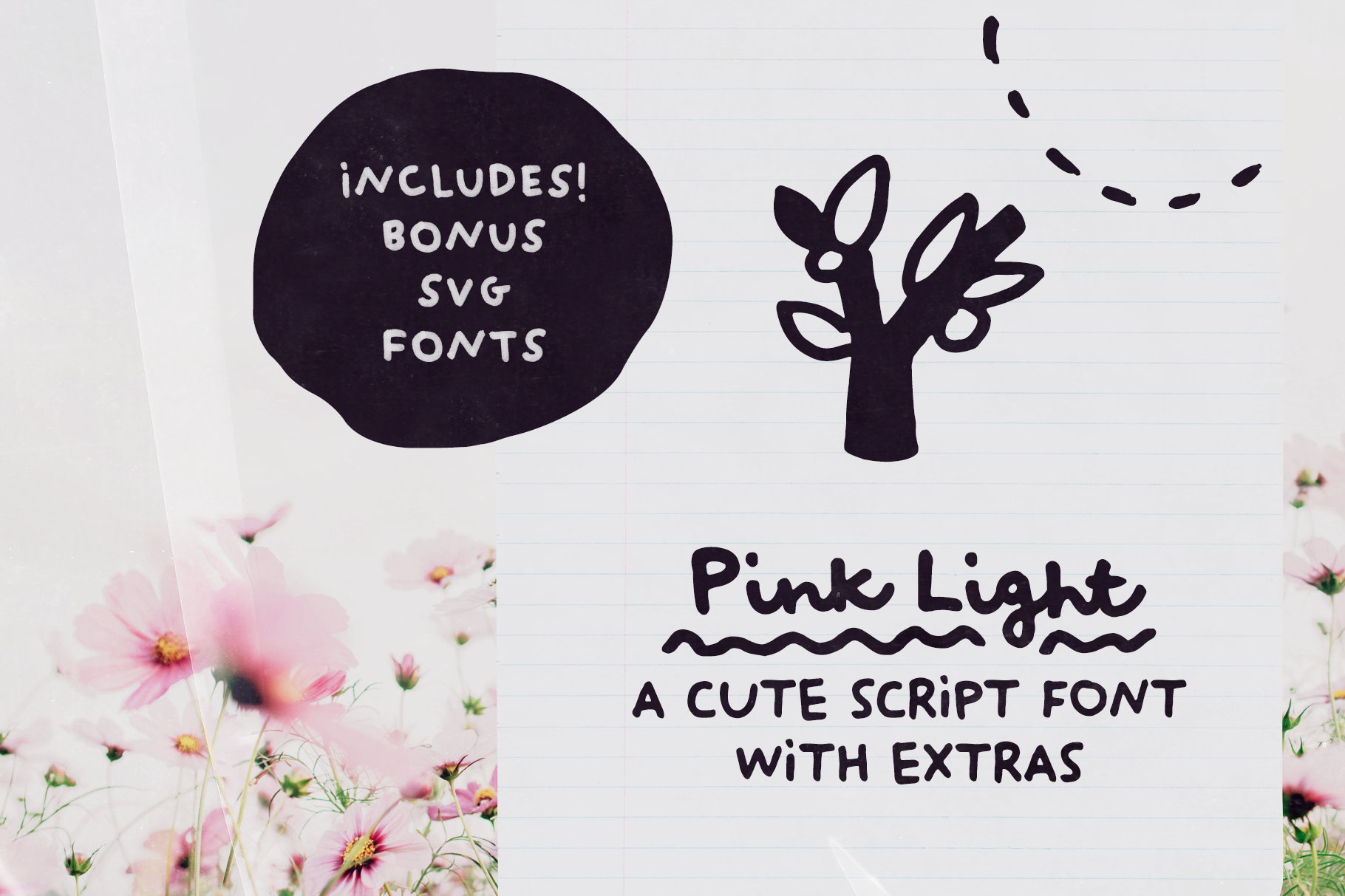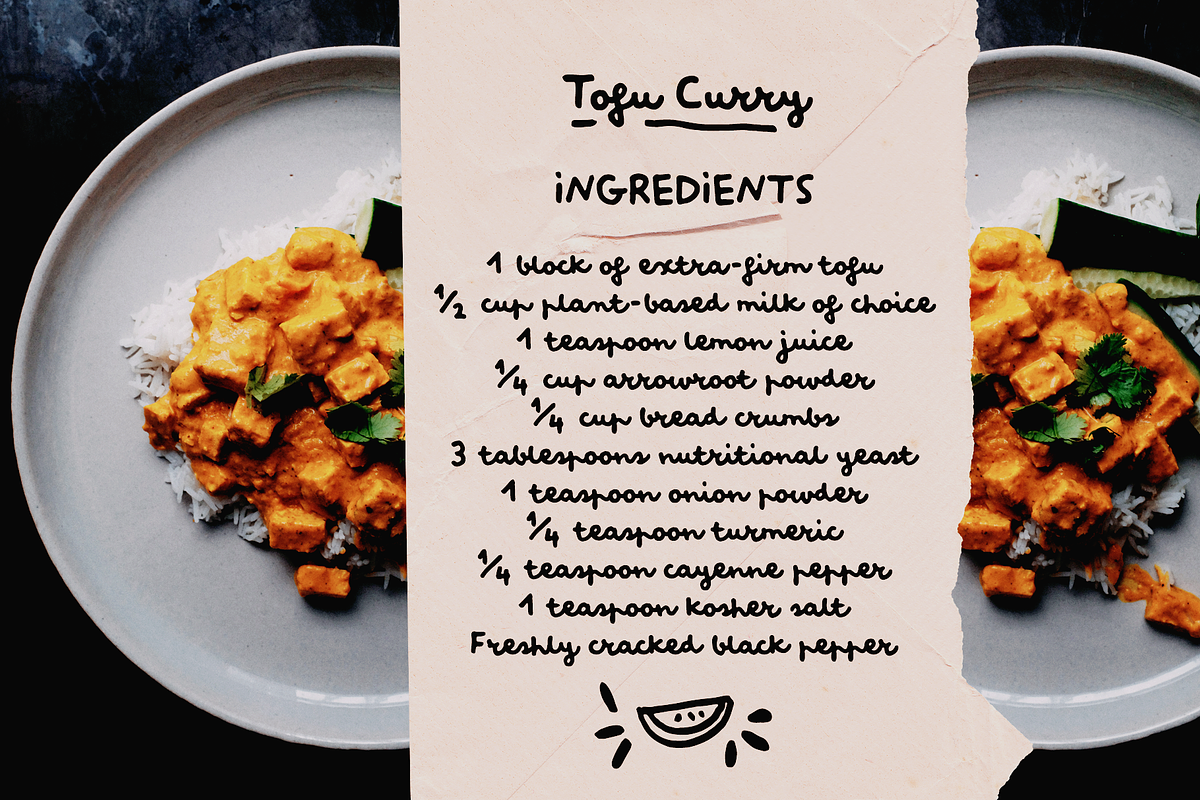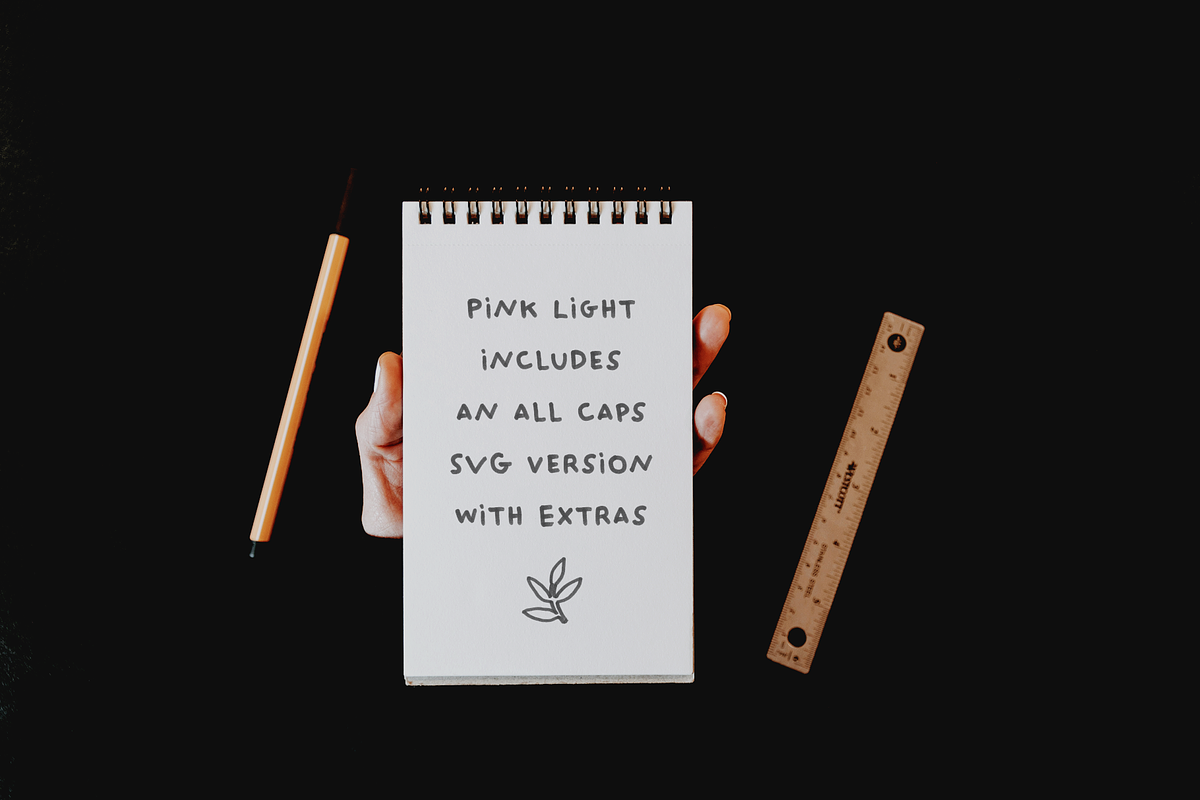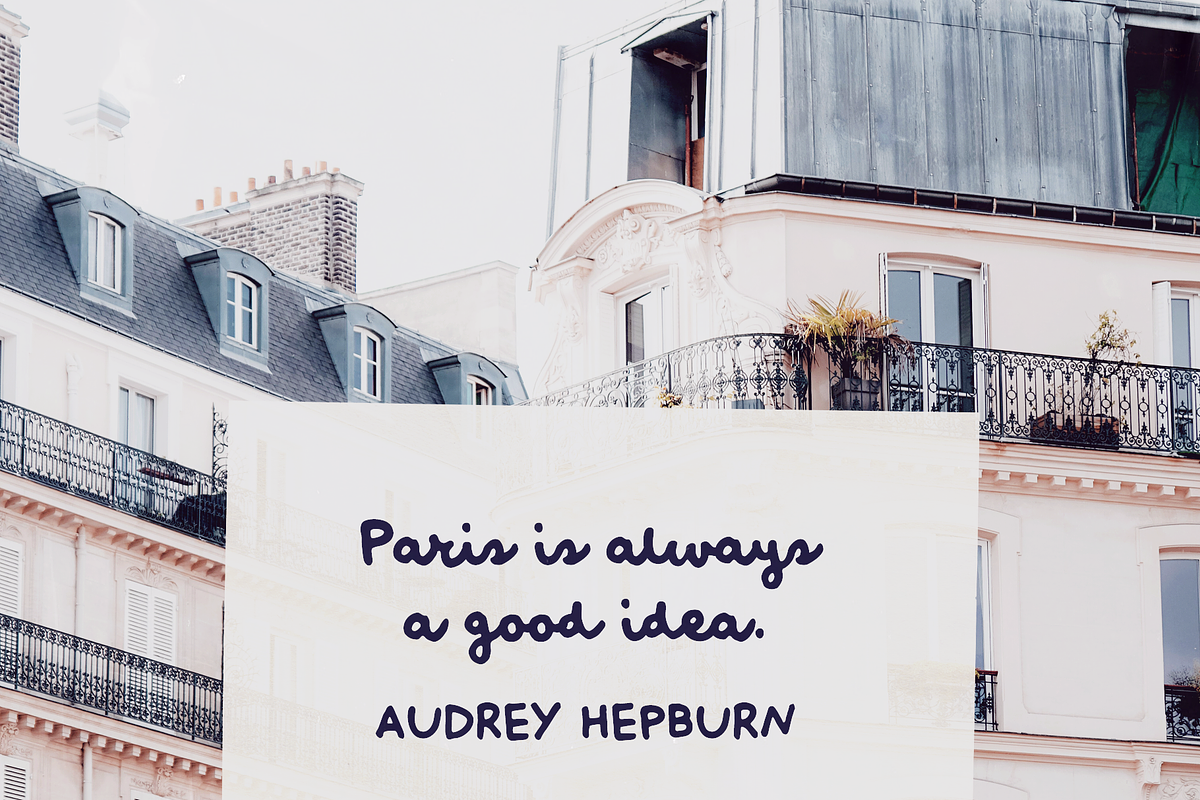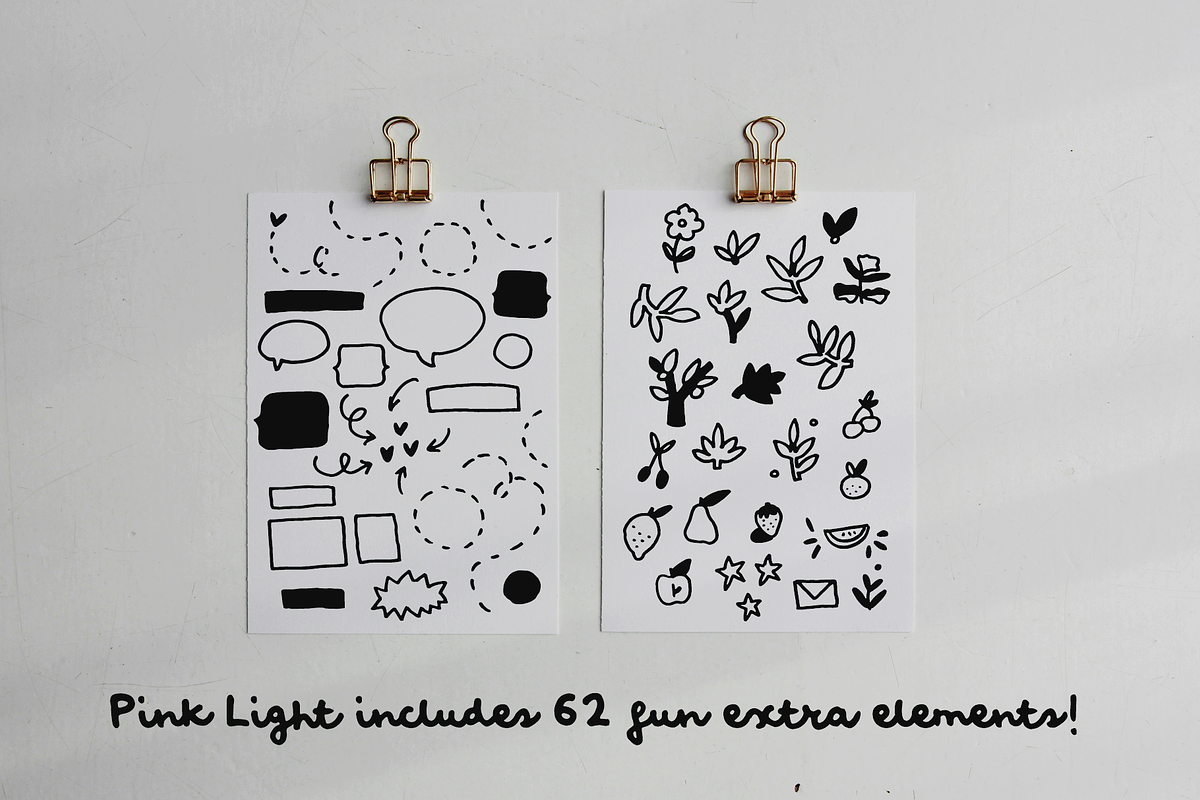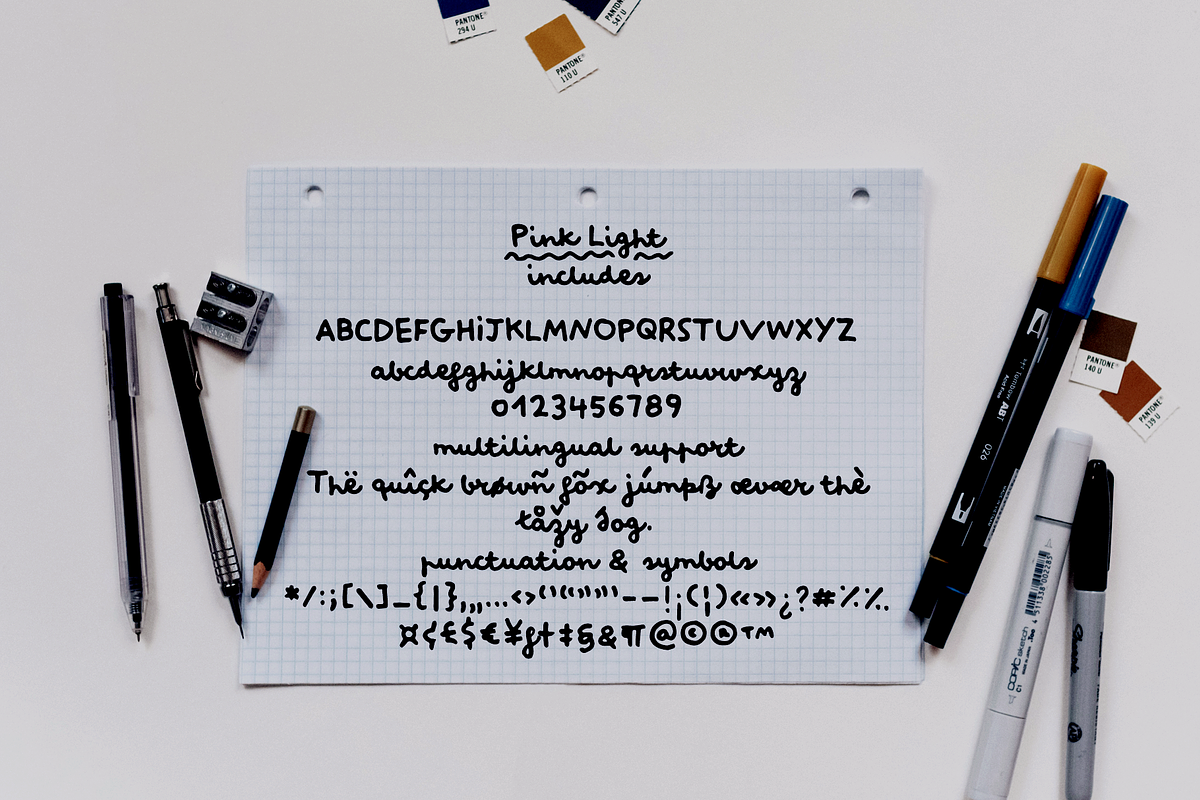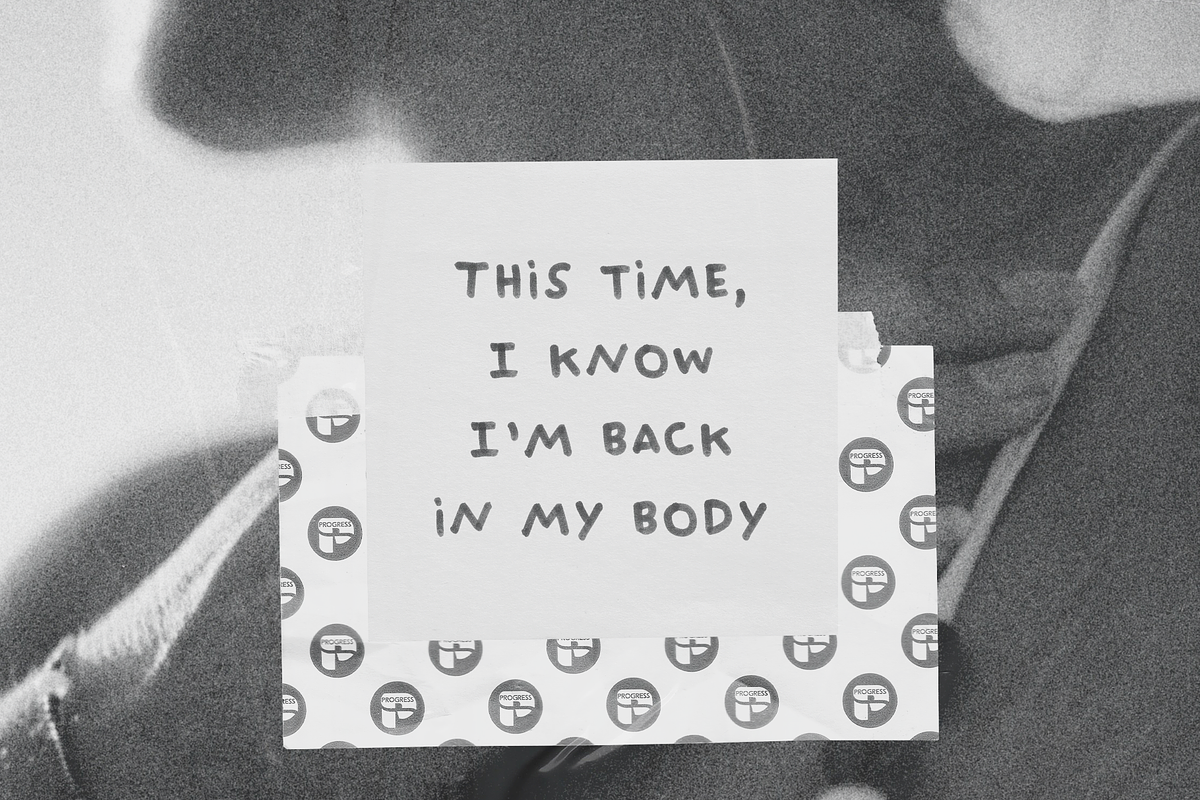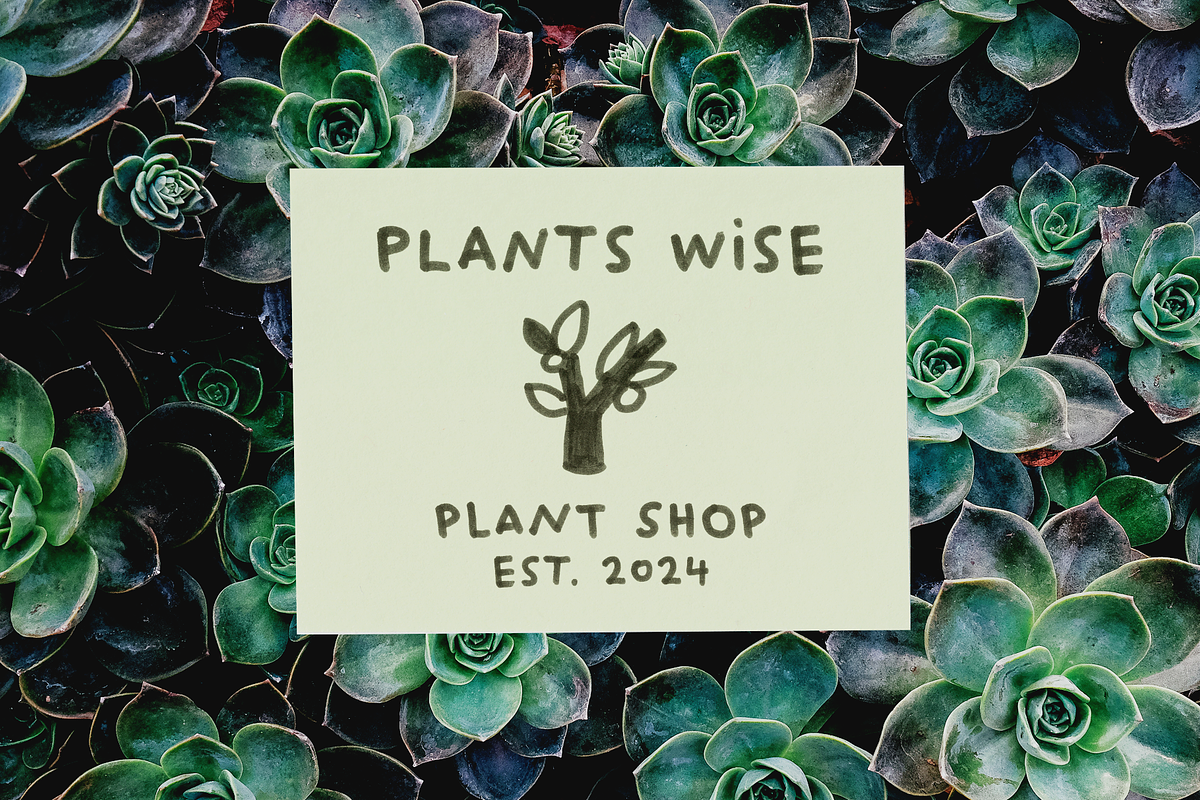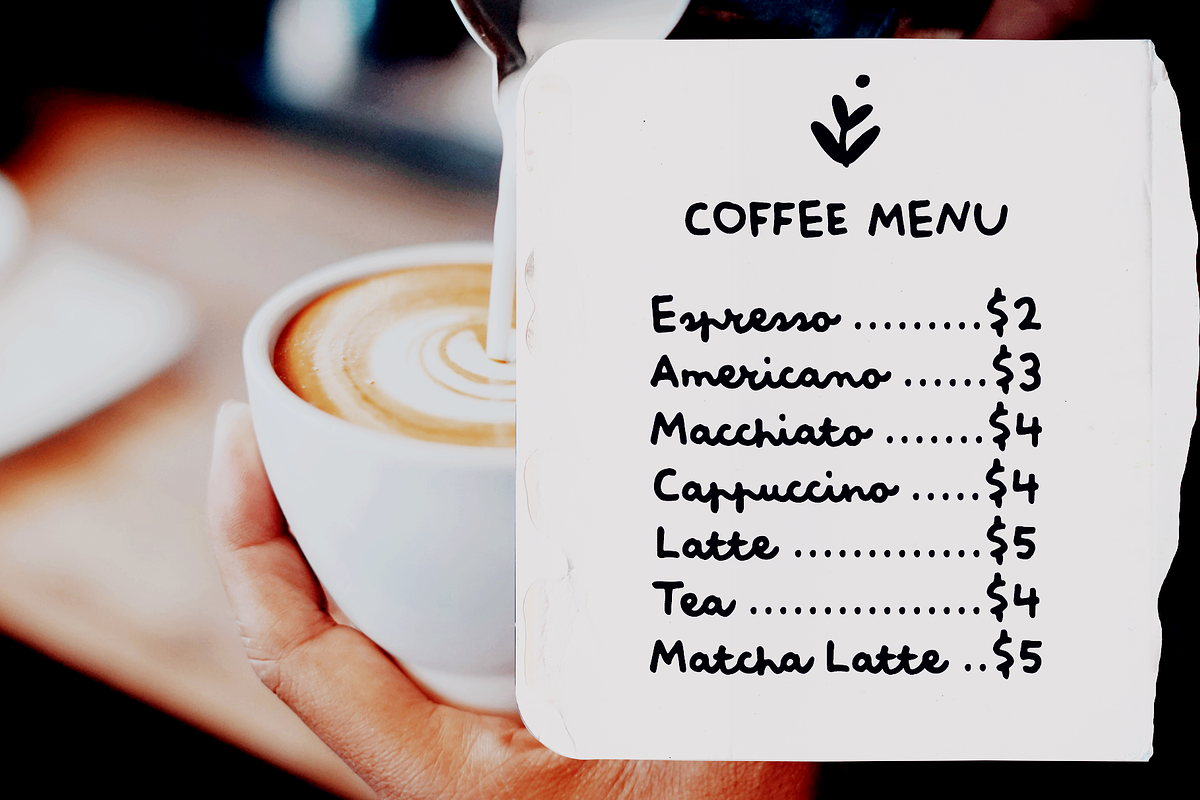
Pink Light cute script font with SVG
Pink Light is a cute script font with lots of extras. It includes:
- Pink Light Regular font with ligatures and alternate characters.
- Pink Light Extras font with 62 cute elements to add to your designs, including underlines, doodles and fruit and floral drawings.
- Pink Light SVG font in all caps, with two different uppercase sets and a subtle marker texture.
- Pink Light Extras SVG, a SVG version of the Pink Light Extras font.
Use Pink Light in designs such as postcards and notes, posters, logotypes, social media posts, branding and packaging.